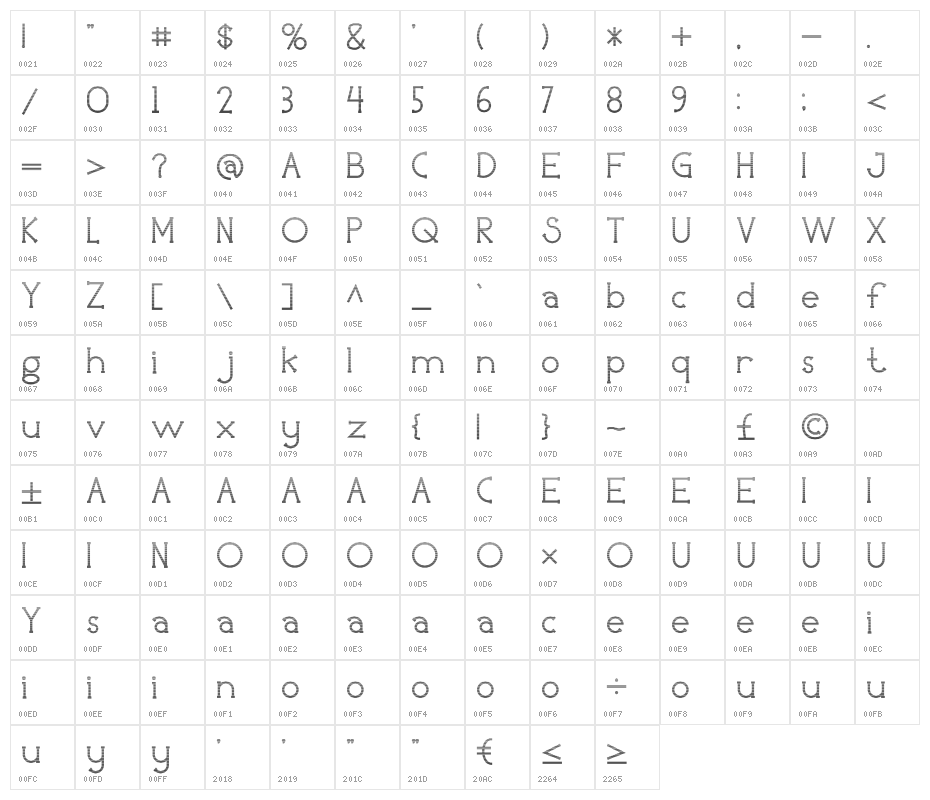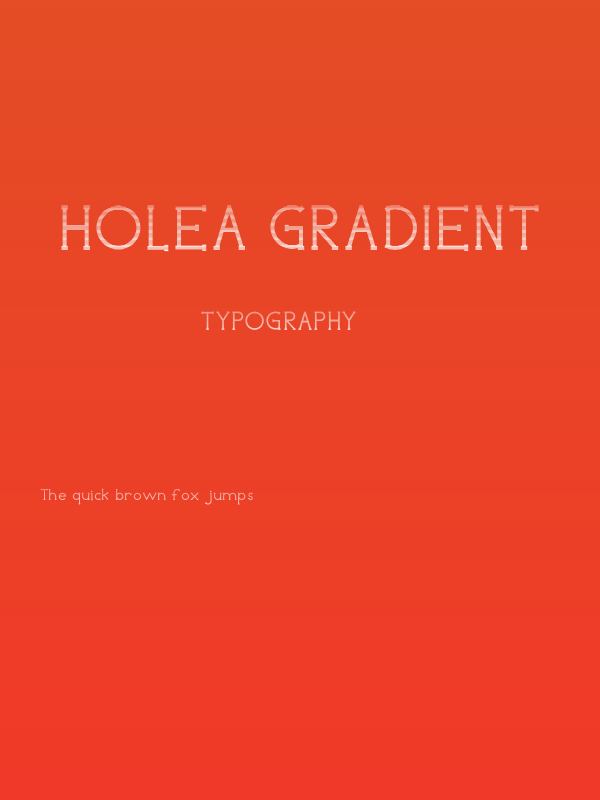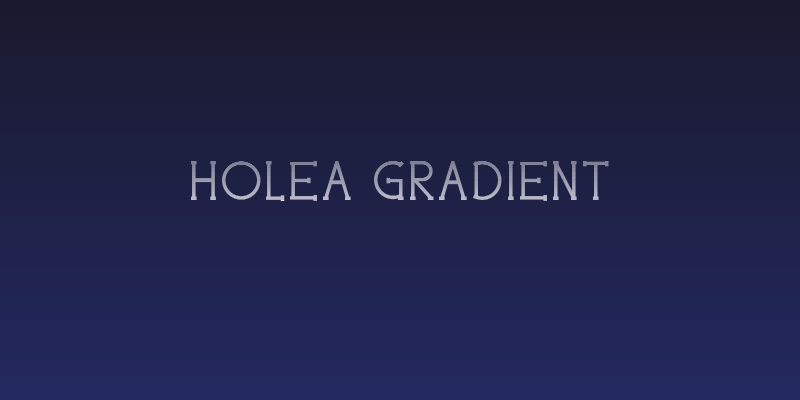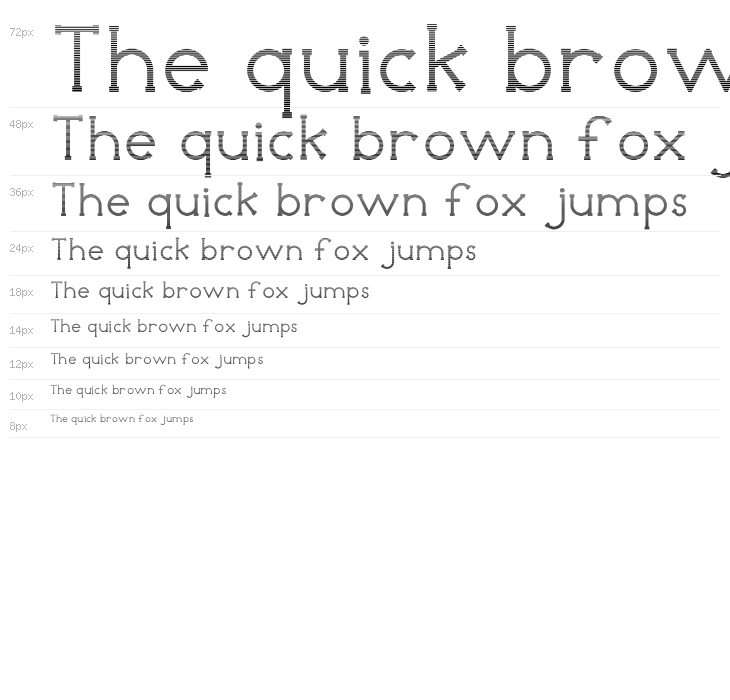
Holea Gradient Font
Holea Gradient Description
This font features a unique gradient effect within each character, giving it a modern and dynamic appearance. The uppercase and lowercase letters maintain a consistent style, with clean lines and a slightly geometric form. The numbers and special characters follow the same design principles, ensuring uniformity across all glyphs. The gradient effect adds depth and visual interest, making it stand out in various design contexts. The font's structure is balanced, with a moderate width and normal character spacing, allowing for readability while maintaining its distinctive style.
| Use Case | Headlines, Logos, Digital Media |
| Proposed Projects | Ideal for branding, advertising, and digital media projects where a modern and eye-catching typeface is desired. |